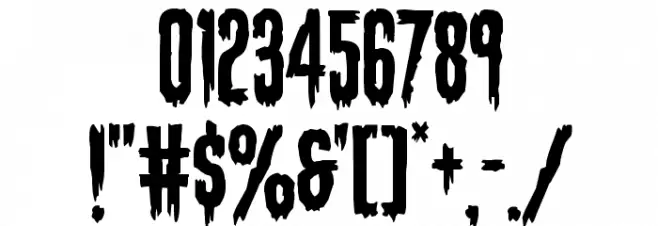
Eva Fangoria Staggered Font
Eva Fangoria Staggered Description
This font features a jagged, distressed appearance reminiscent of horror or thriller themes. The characters have an uneven, dripping effect that gives them a spooky, unsettling vibe. The uppercase and lowercase letters maintain a consistent style, with sharp edges and irregular strokes that suggest a sense of decay or erosion. The numbers and special characters follow the same aesthetic, making the font cohesive and visually striking. Its unique style is perfect for creating an eerie atmosphere in designs.
A jagged, horror-themed font with a distressed, dripping effect from Uncategorized fonts.
- Proposed Projects: Ideal for Halloween posters, horror movie titles, haunted house flyers, and spooky-themed event invitations.